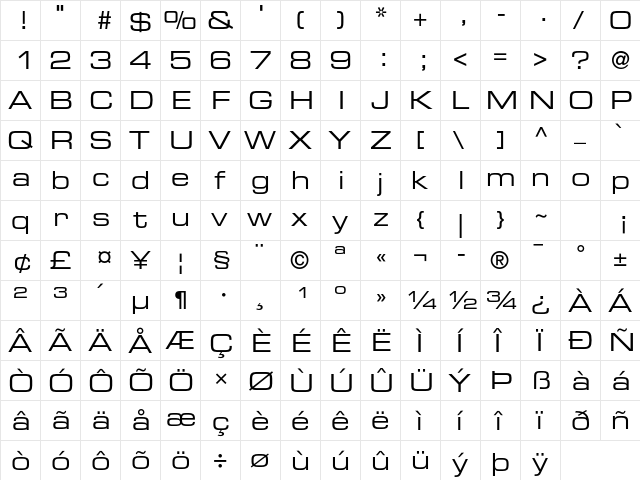
Eurostile LT Std Extended 2
| Designer | Aldo Novarese, A. Butti |
Design Context for Eurostile LT Std Typeface
Eurostile LT Std offers clean, dependable letterforms without strong stylistic allegiance, making it a practical choice for designers who need flexibility. The delicate stroke weight brings airiness and refinement to layouts.